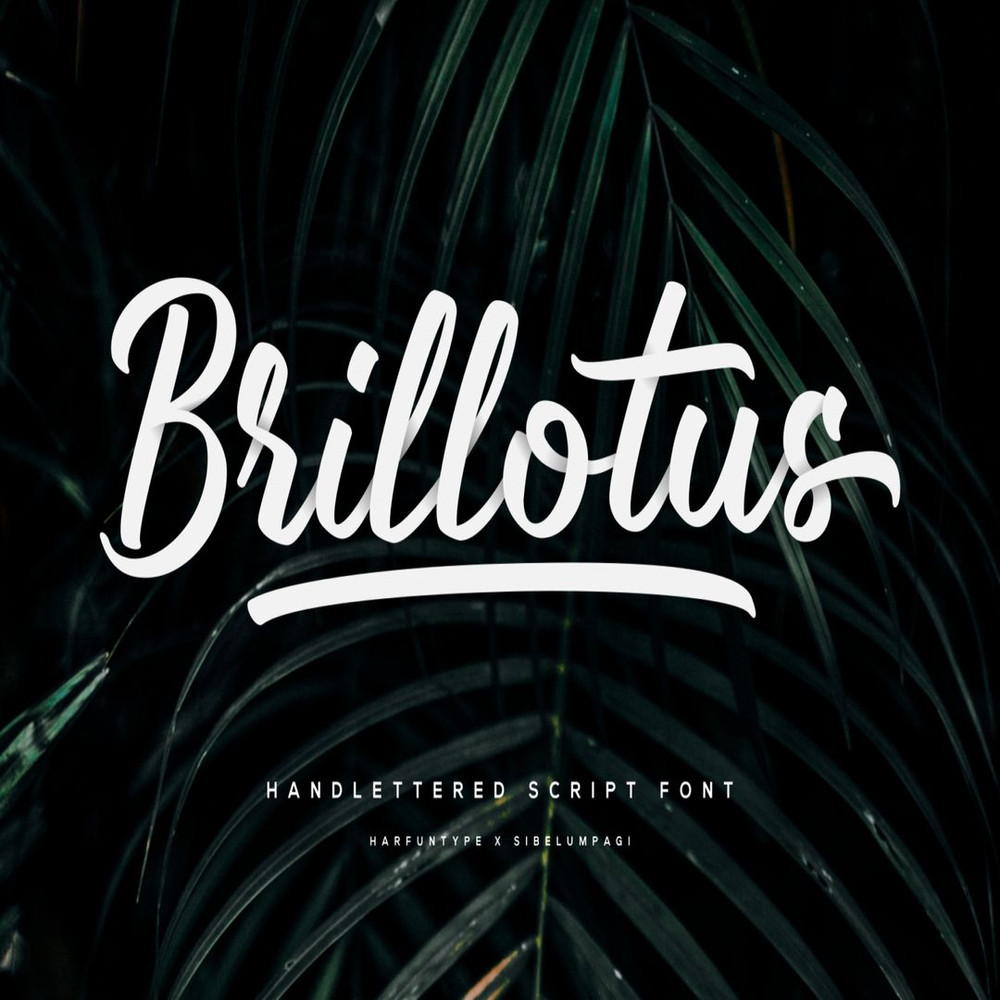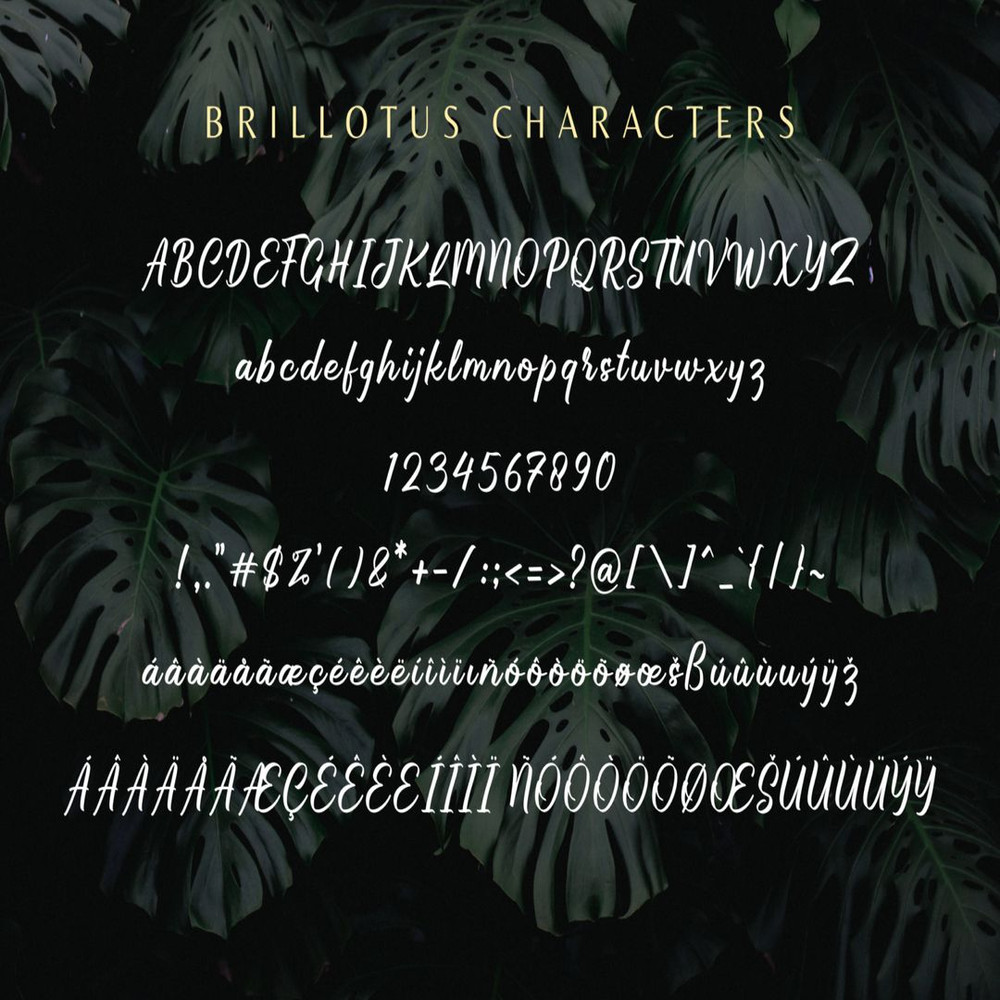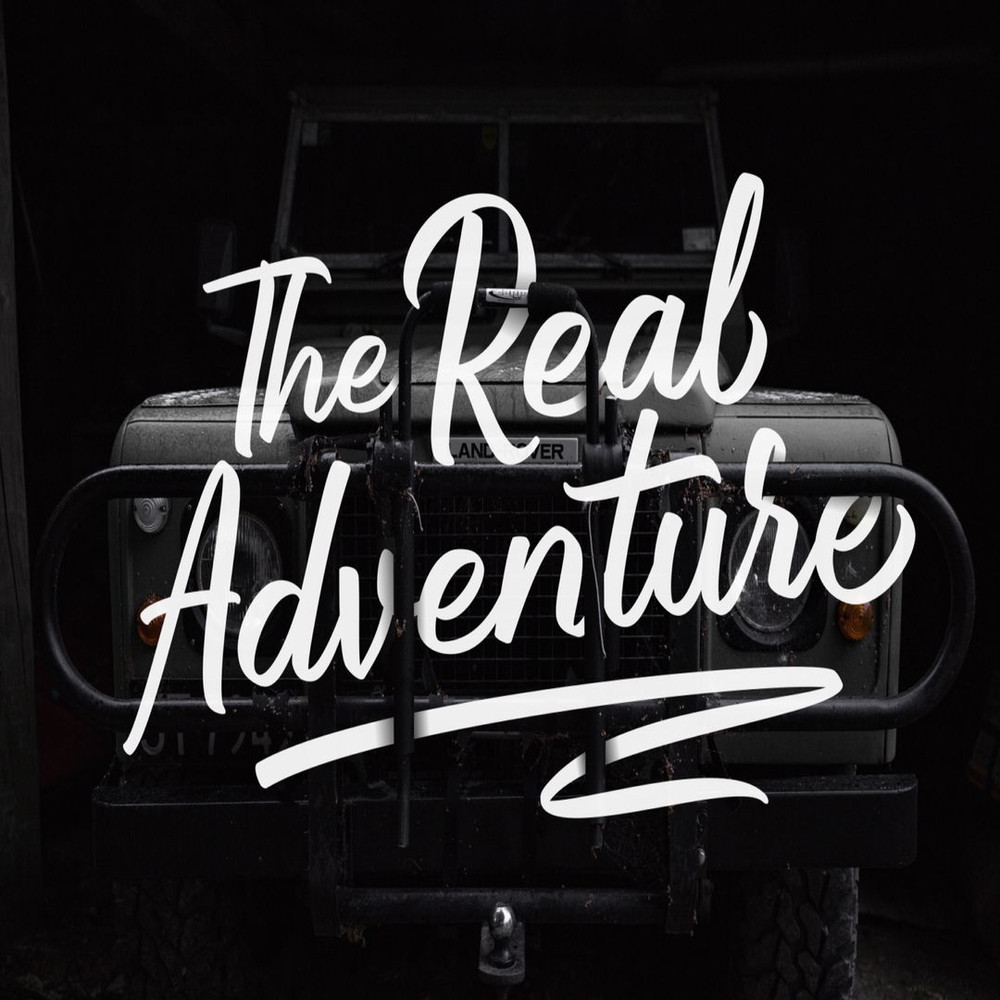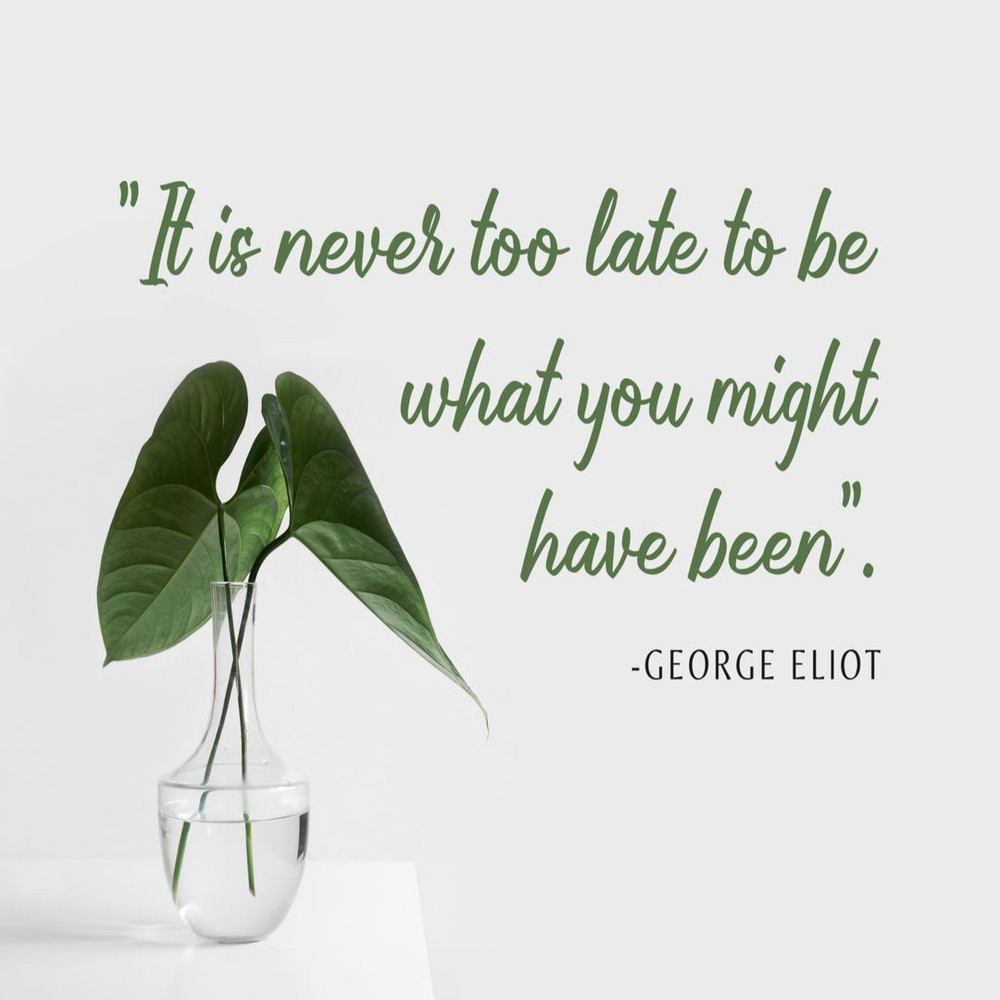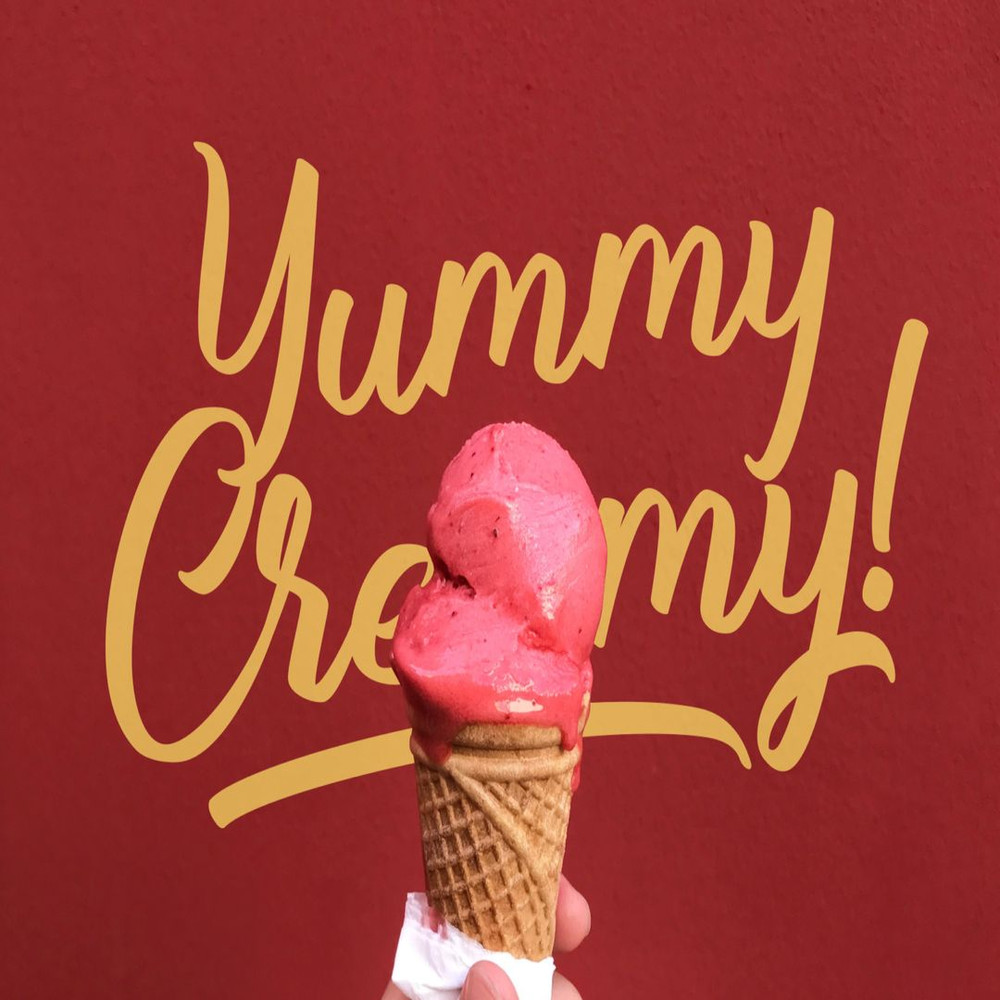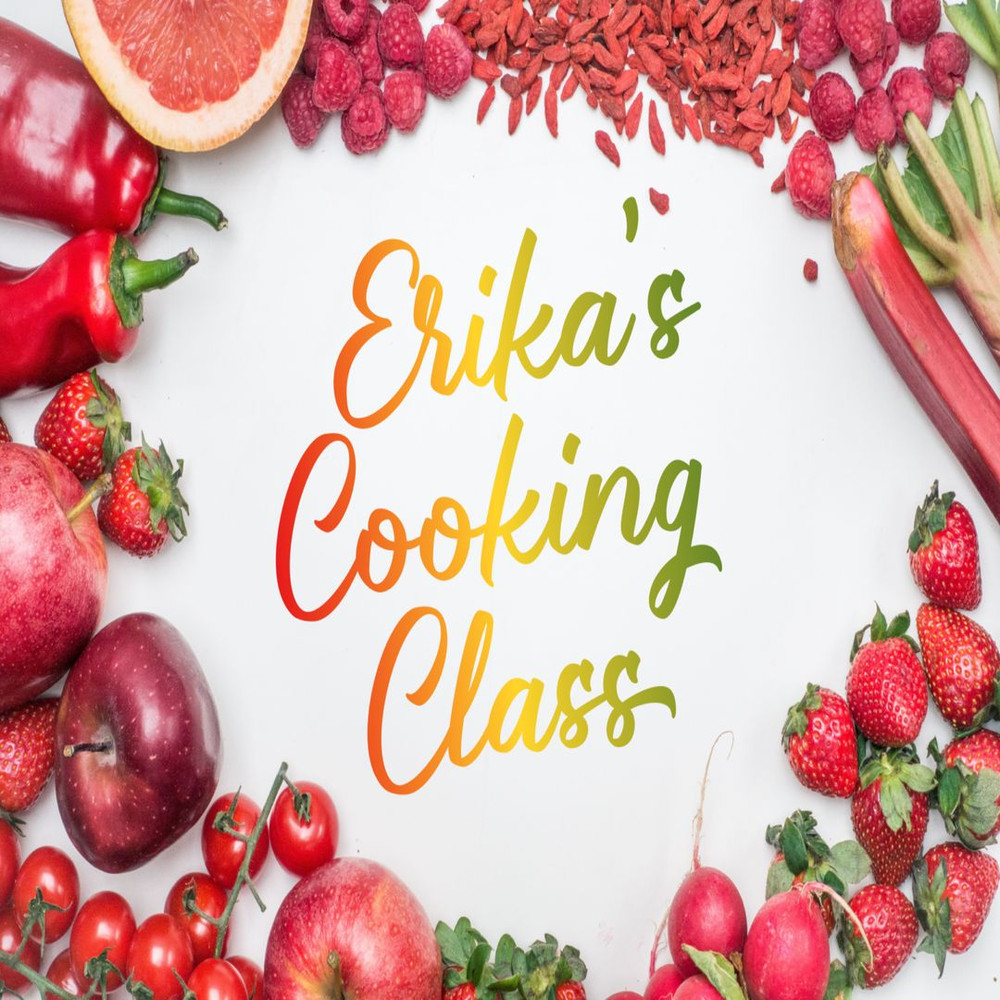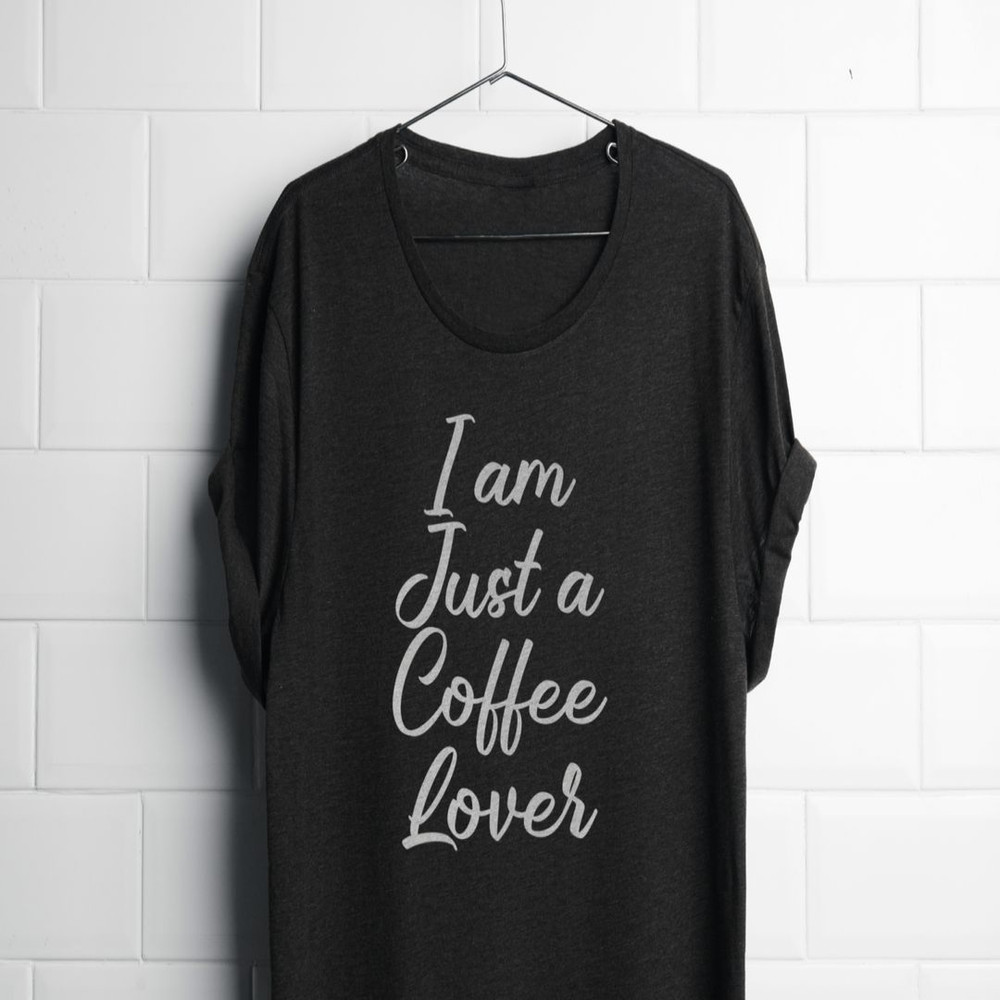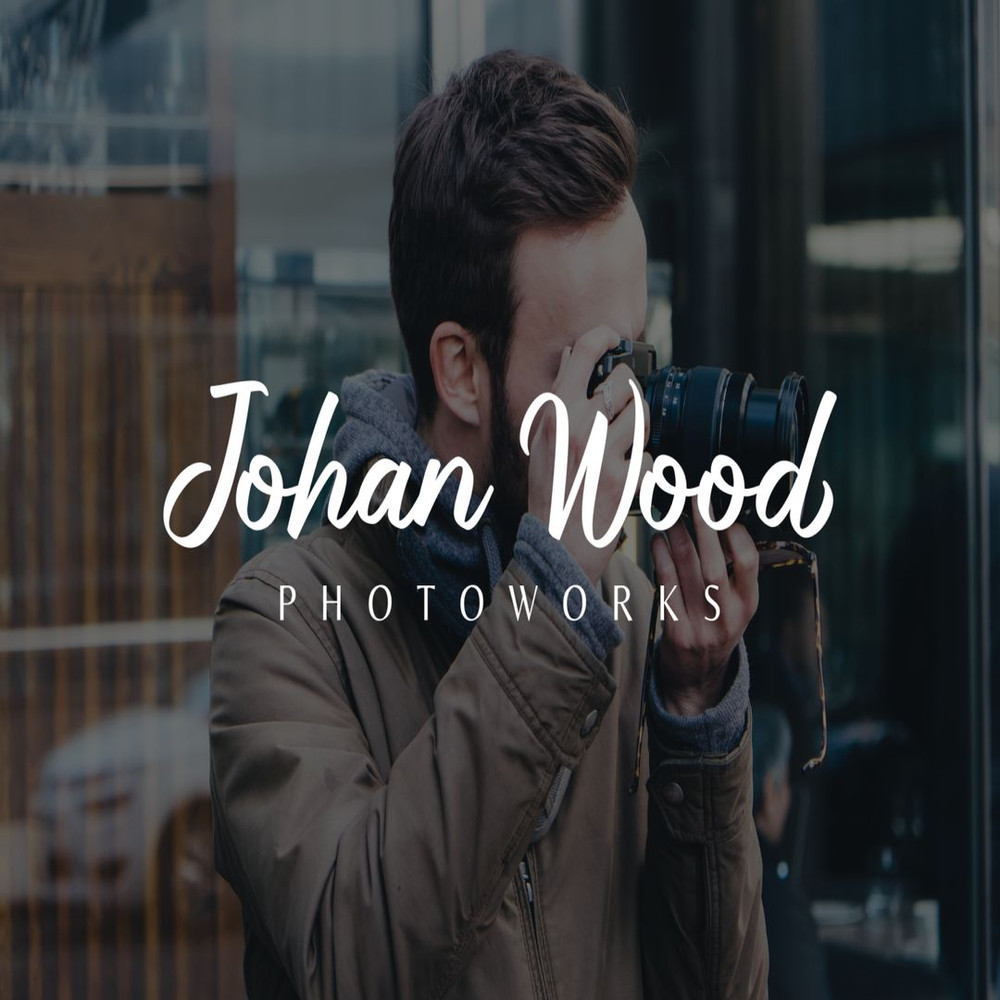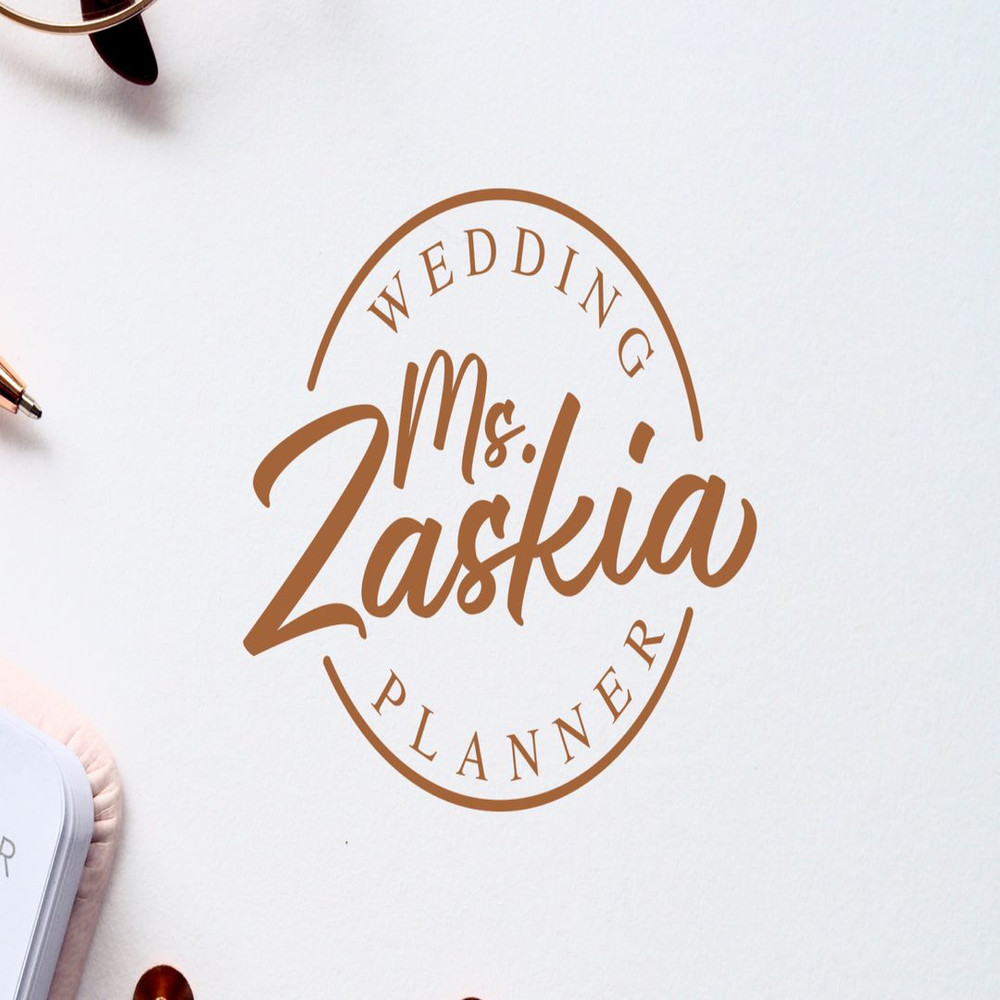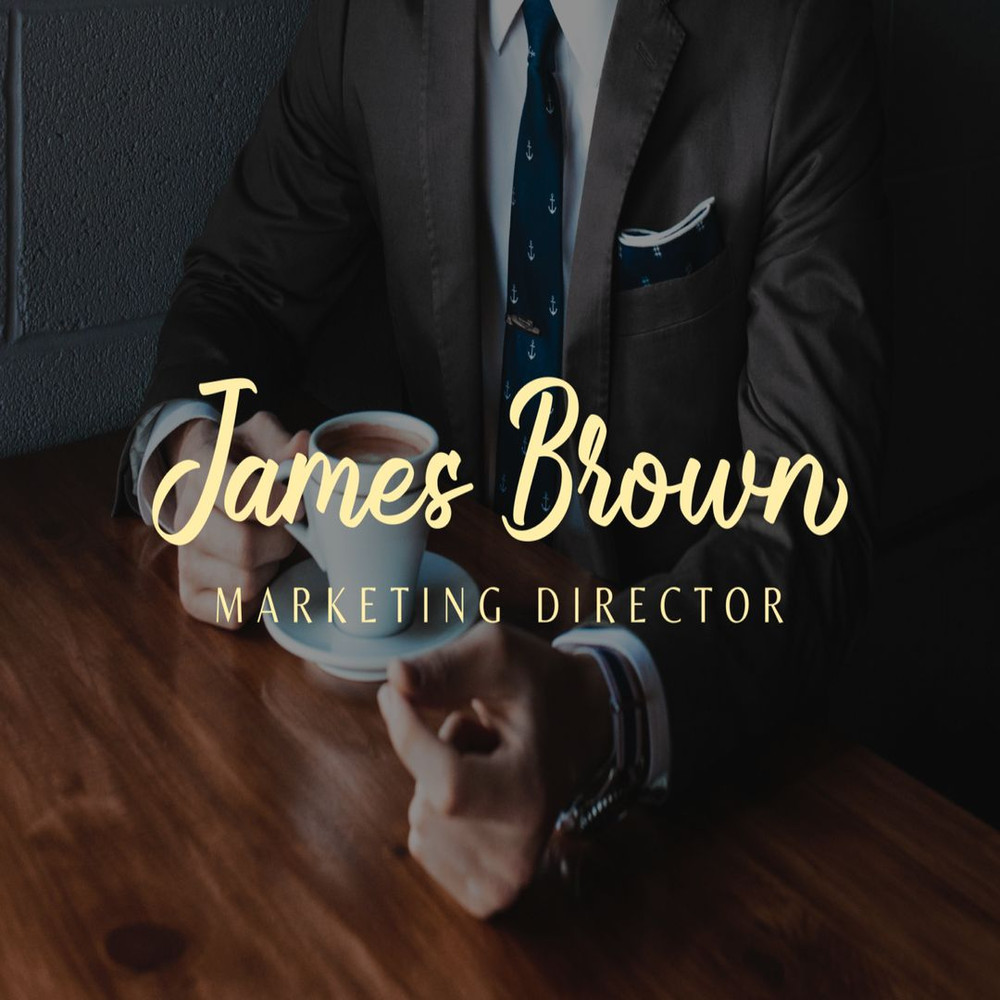
Brillotus is a hand-lettered script font with a dynamic and clean style. It can be used for various purposes such as titles, signatures, logotypes, t-shirt designs, letterheads, signage’s, labels, newsletters, posters, badges, and every other design which needs a unique font.